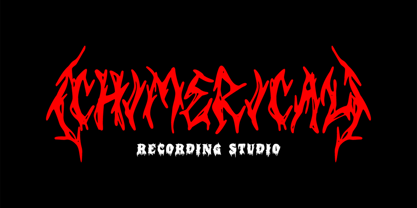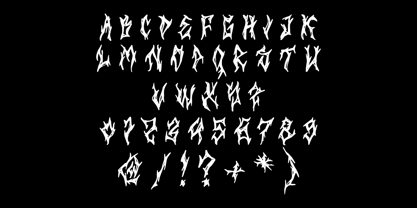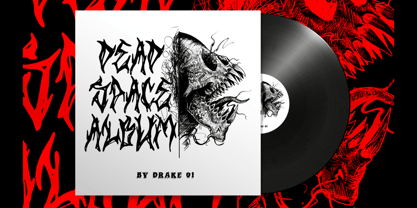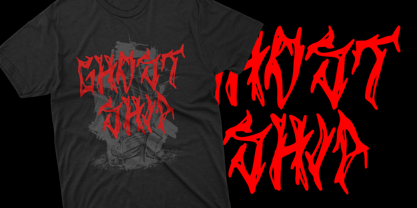
Trash Cadaver
by Prioritype
The Trash Cadaver Font Family was designed by Prio Nurokhim Aji and published by Prioritype. Trash Cadaver contains 1 styles.
Presenting our Black Metal Font: a design powerhouse for those craving intensity and mystique. Crafted with angular, razor-sharp letterforms, it’s ideal for merchandise, logos, posters, and more. Ignite your creativity with the darkness of black metal, leaving a lasting impression that refuses to be ignored. Choose Black Metal Font for unparalleled impact.
• Features: Uppercase, Lowercase, Numeral, Simple Punctuation & Multilingual.
Designers: Prio Nurokhim Aji
Publisher: Prioritype
Foundry: Prioritype
Design Owner: Prioritype